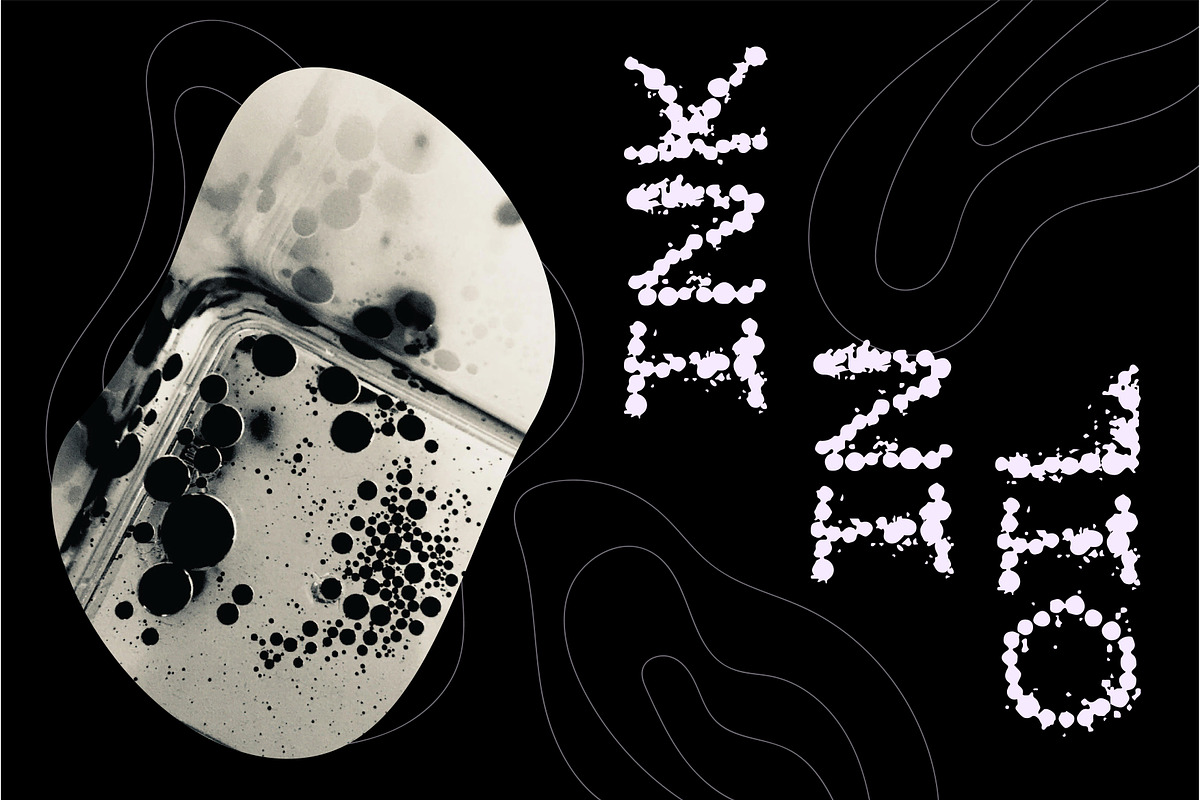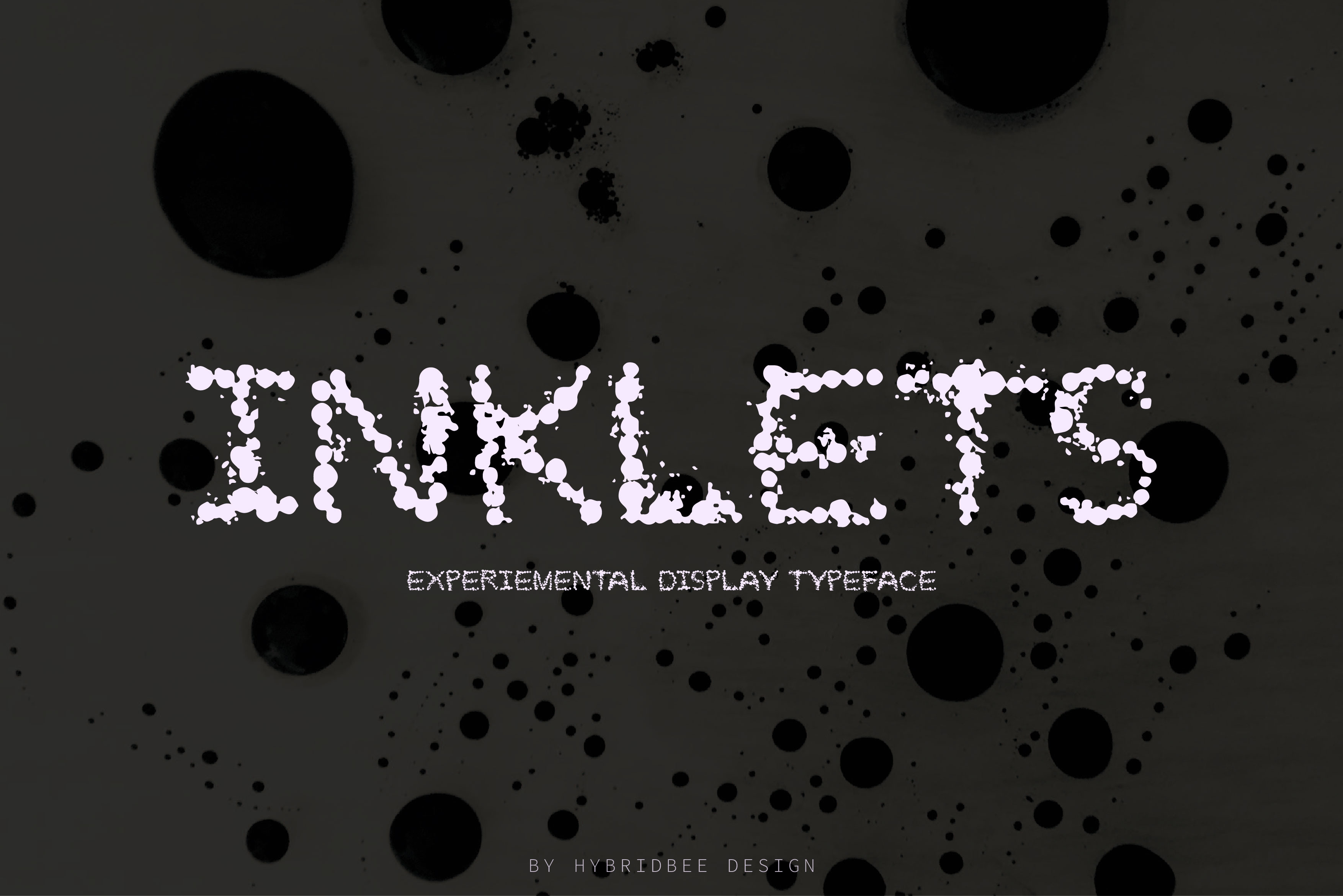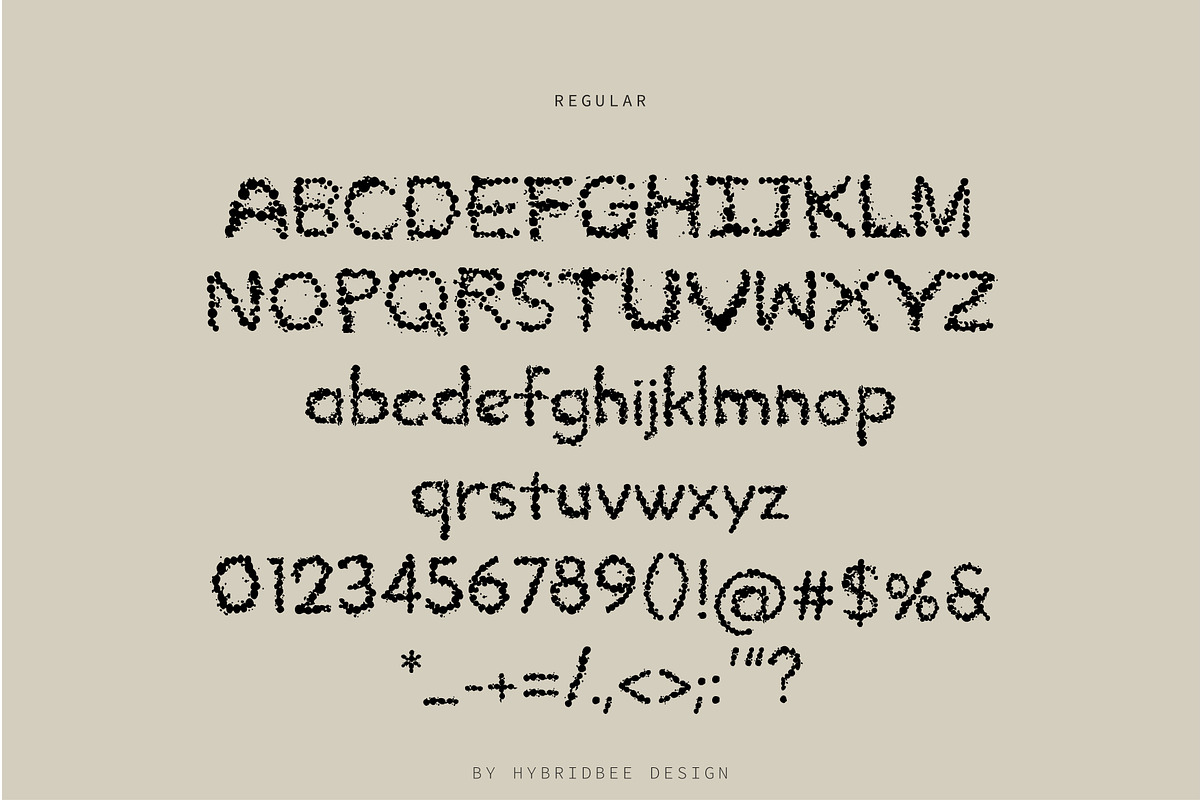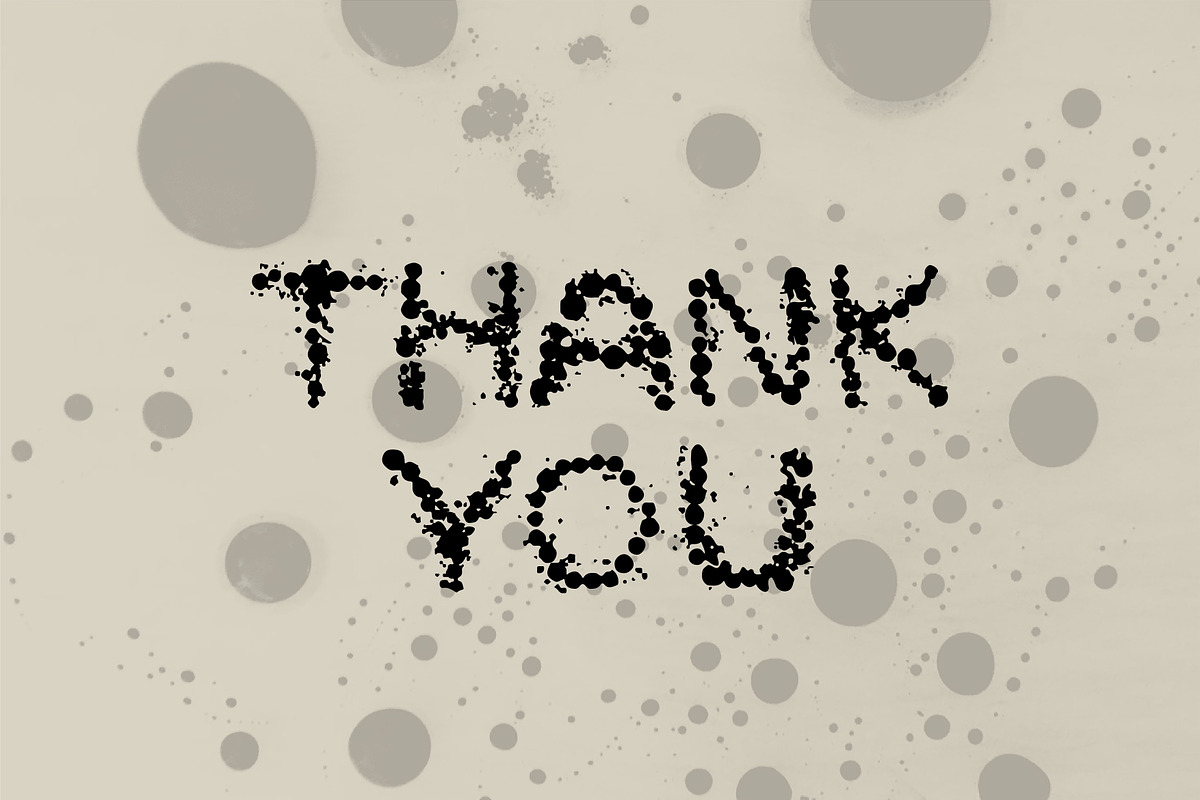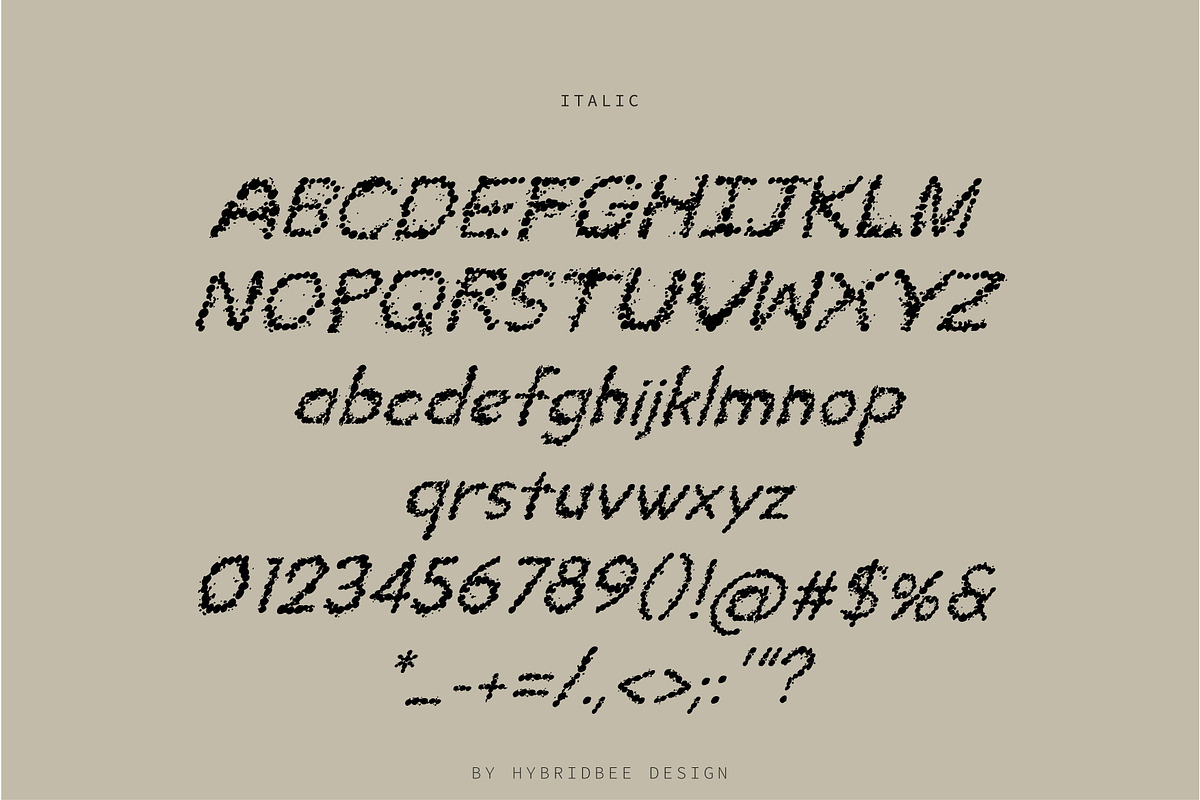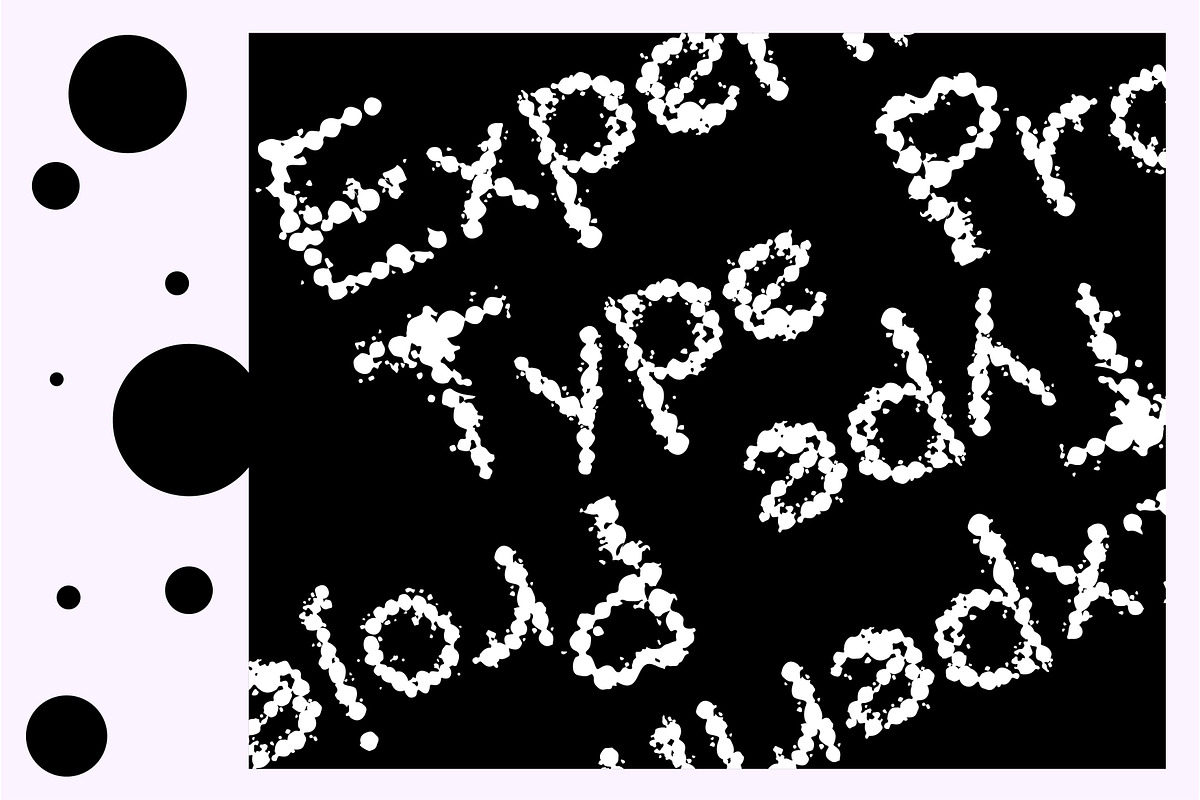
INKLETS - Display Font
INKLETS – Display Font
Inklets is a display font with a unique and experimental edge. It includes uppercase letters, lowercase letters, numerals and some punctuations in two weights: regular and italic. It has a fun and artistic style and can be used to create posters, headlines, branding, packaging, logo, web design, etc.